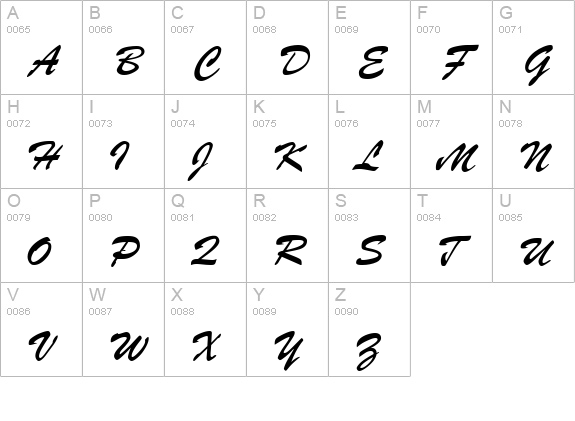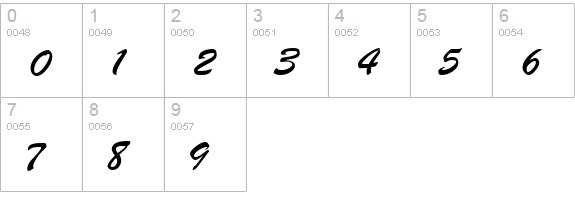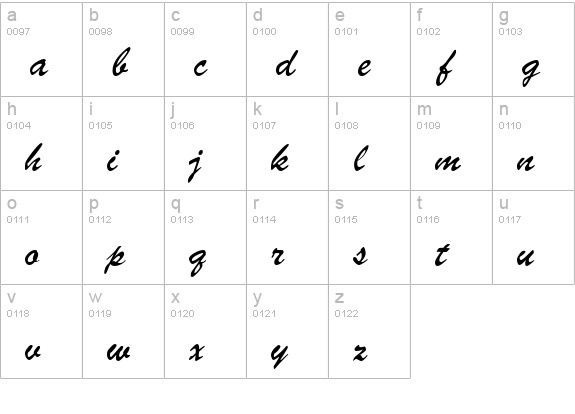
ParsekCTT Font Details
Introducing ParsekCTT, a stunningly elegant font that effortlessly combines modern sophistication with timeless appeal. With its clean lines, delicate curves, and impeccable letterforms, this font is truly a masterpiece of typography. ParsekCTT offers a wide range of versatility, making it perfect for a variety of design projects. Whether you're creating eye-catching logos, captivating headlines, or elegant invitations, this font will elevate your designs to new heights of professionalism. What sets ParsekCTT apart is not only its exquisite design but also its accessibility. This font is available for free, allowing designers of all levels to access its beauty and versatility without any financial constraints. You can easily download ParsekCTT for free at FontsMarket.com, a trusted source for high-quality fonts. FontsMarket.com provides a seamless and user-friendly experience, ensuring that you can quickly and effortlessly obtain this extraordinary font to enhance your creative projects. Embrace the power of ParsekCTT and unlock a world of design possibilities. Download it for free today at FontsMarket.com and experience the beauty and versatility that this font has to offer. Let your designs speak volumes with the elegance and sophistication of ParsekCTT.